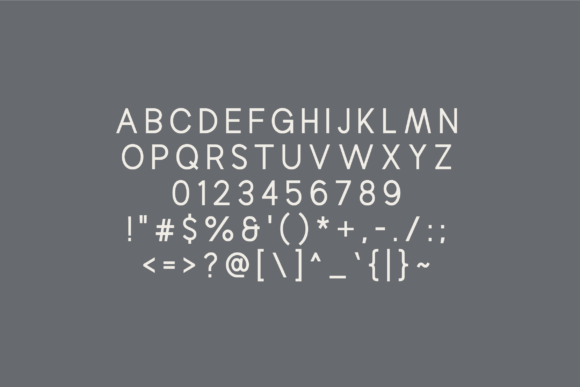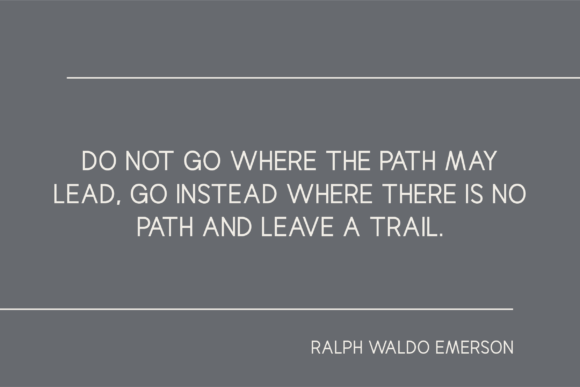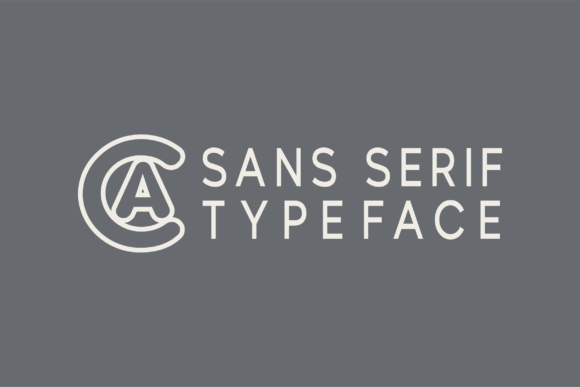
Introduction to Poppine Font
Have you ever found yourself staring at a blank canvas, desperately searching for the perfect font to bring your creative project to life? The frustration is real, but what if I told you that the answer lies in a sleek, modern sans serif typeface that’s about to revolutionize the way you design? Say hello to the Poppine Font, a game-changing design resource that’s poised to take your creativity to the next level.
With its versatility and adaptability, Poppine Font is the perfect addition to any designer’s toolkit. Whether you’re working on a logo, wedding invitation, or premium print-ready magazine, this high-quality font is sure to elevate your design and leave a lasting impression. And the best part? It’s available for free download, making it an accessible and valuable resource for designers of all levels.
From its elegant upper-cased letters to its comprehensive array of punctuation and symbols, Poppine Font is the ultimate design companion for anyone looking to add a touch of sophistication and charm to their work.
Key Features of Poppine Font
- Poppine Font features a unique blend of modern and vintage elements, making it an excellent choice for projects requiring a touch of elegance and sophistication.
- The font is highly legible, even at smaller sizes, making it ideal for use in body text, headings, and titles.
- With its high-quality design and versatility, Poppine Font is a valuable addition to any designer’s toolkit, perfect for a wide range of creative projects.
Honest Review: Poppine Font
I recently had the chance to work with the Poppine Font in a creative project, and I must say it was a great experience. The font is a high quality design resource that can really elevate your designs. One of the things I liked about the Poppine Font is its versatility – it works well in both digital and print projects.
- ✨ Unique and playful design that can add a touch of whimsy to your designs
- ✨ High quality font that is crisp and clear, even on transparent backgrounds
While the Poppine Font is a great resource, there are a few limitations to be aware of. The font only comes in a few weights, which may limit its use in certain projects. Additionally, the font may not be suitable for all types of text, such as body copy.
- ⚠️ Limited weight options
- ⚠️ May not be suitable for body copy or other types of text that require a high level of readability
Overall, I was impressed with the Poppine Font and would definitely consider using it in future projects. With its unique design and high quality, it’s a great addition to any designer’s toolkit.
Poppine Font is perfect for:
1. Creative projects that require a unique touch.
2. Designs that need a modern and elegant look.
3. Projects that require a high-quality, free download design resource.